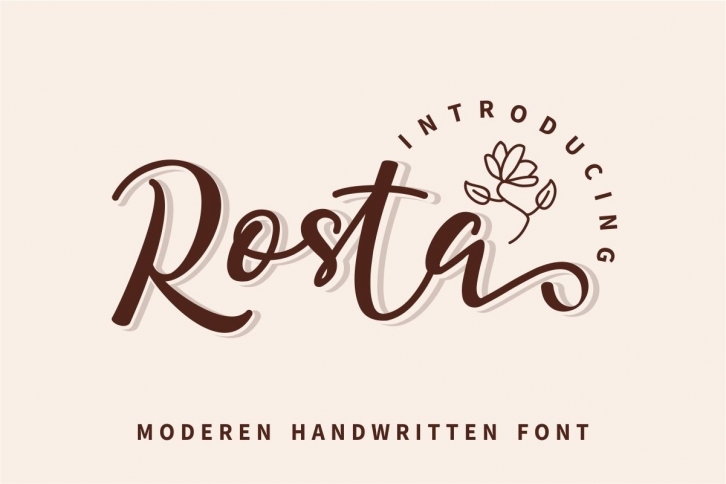
Rosta is a handwritten font that comes with style and character.
This font is perfect for use in your design projects. for any type of logo, photography, wedding invitations, advertisements and projects that require Handwritten fonts